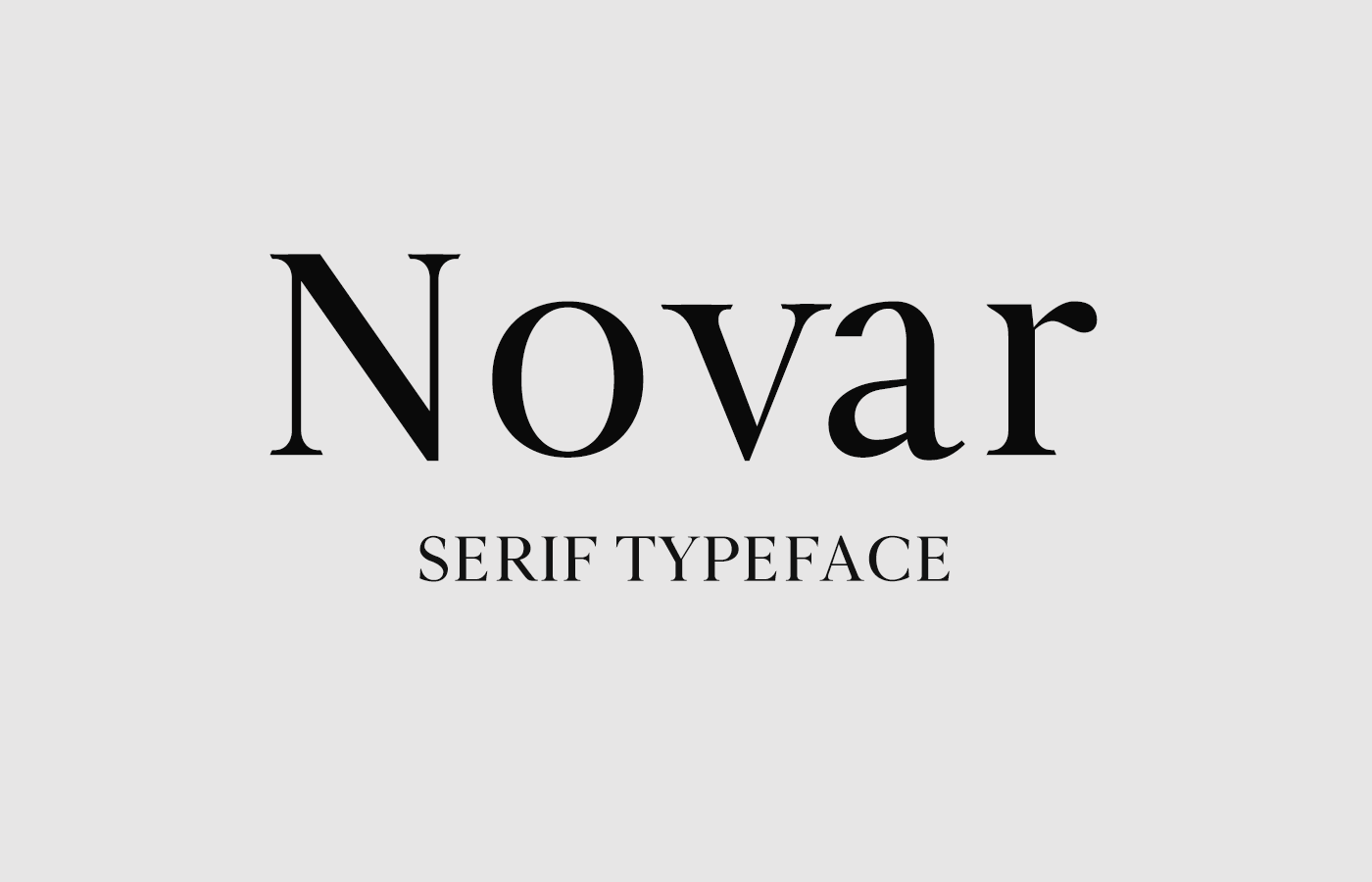
Novar Typeface
A versatile complimentary font. Introducing Novar Typeface! designed and shared by Marco Ballarè. Novar well suited for professional clients. Novar Typeface is well suited for various design projects, such as logos, advertising, quotes, packaging design and others.